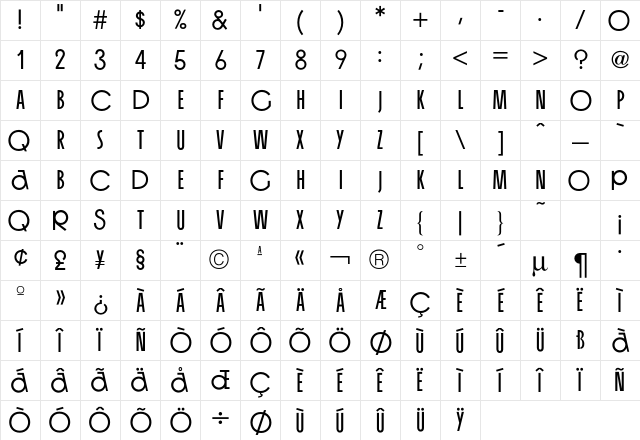
Organda Bold
Organda Family
Design Context for Organda
Organda is a composed and adaptable typeface that performs quietly and consistently across a wide range of design contexts. Its bold stroke weight gives it real presence on the page.